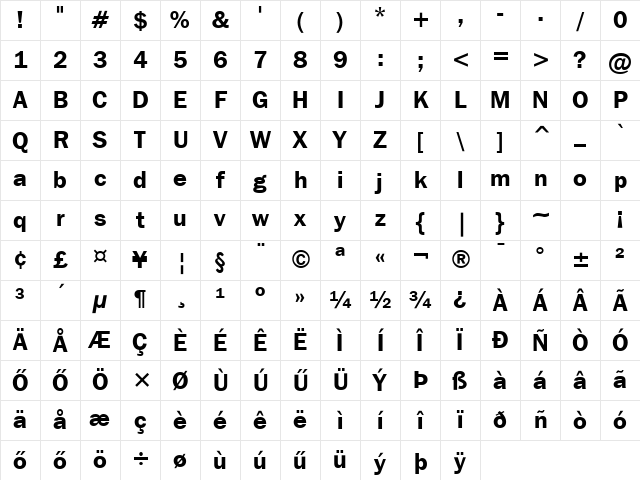
Complete FranklinGothic DemiHU Demi glyph index. Displaying only characters natively supported by FranklinGothic DemiHU Demi font.
FranklinGothic DemiHU takes a clean, functional approach - its unadorned letterforms prioritise legibility and work reliably across screen and print environments.
Font Pairing: Works well alongside a characterful serif or display font that can carry the expressive load while FranklinGothic DemiHU handles the functional copy.
Pro Tip: Use FranklinGothic DemiHU for UI labels, navigation, and short-form body copy where clean legibility is the priority.